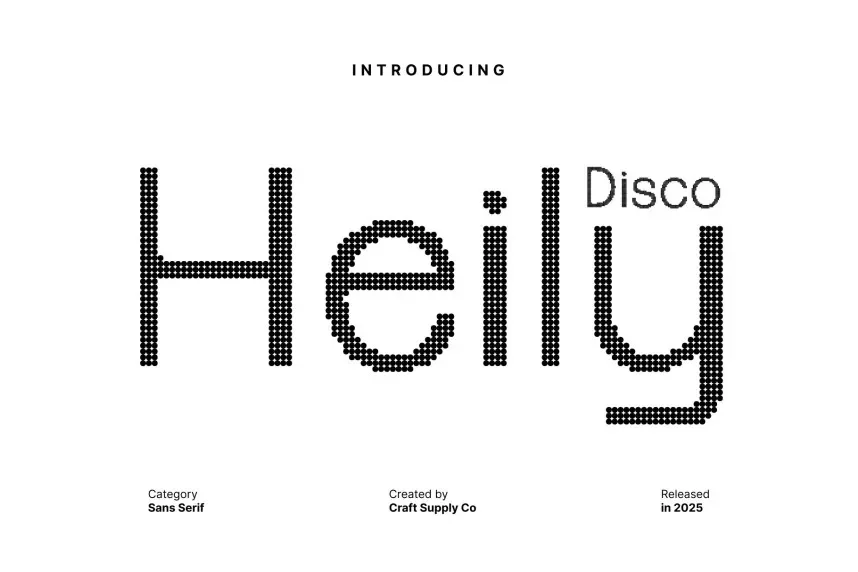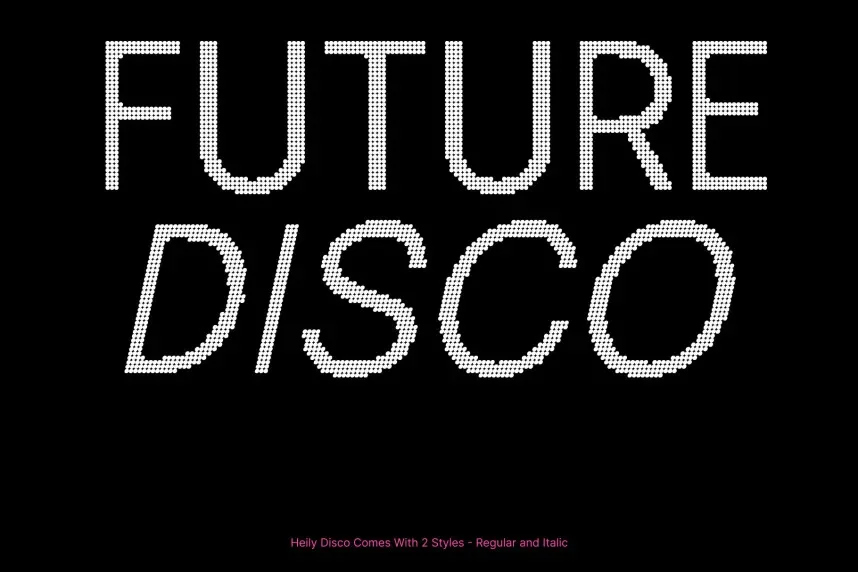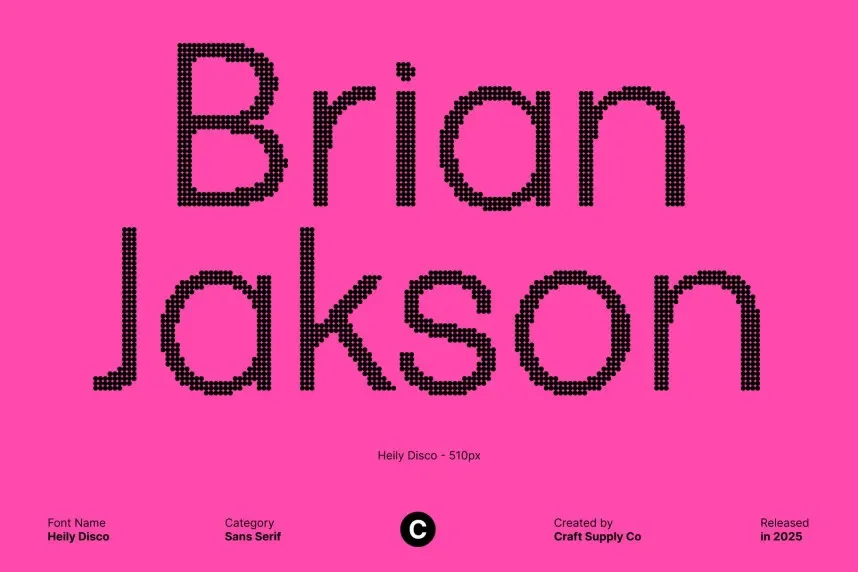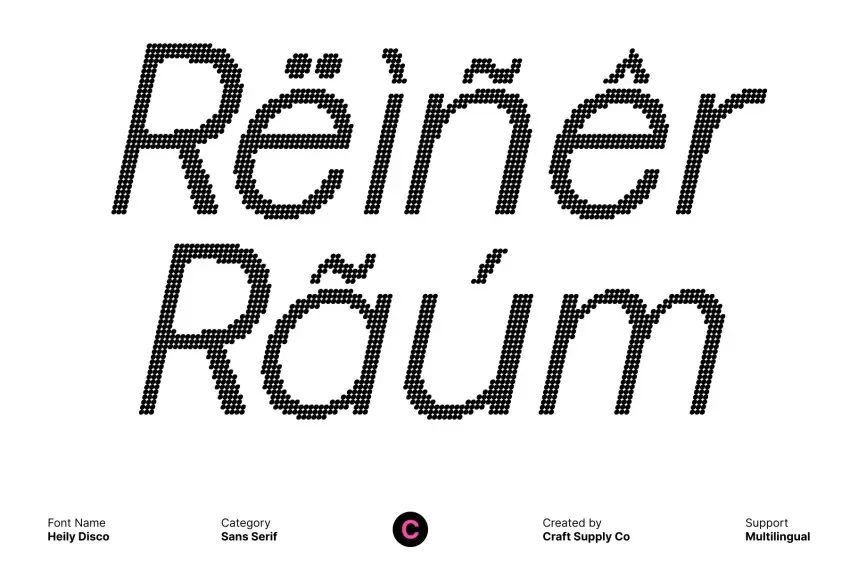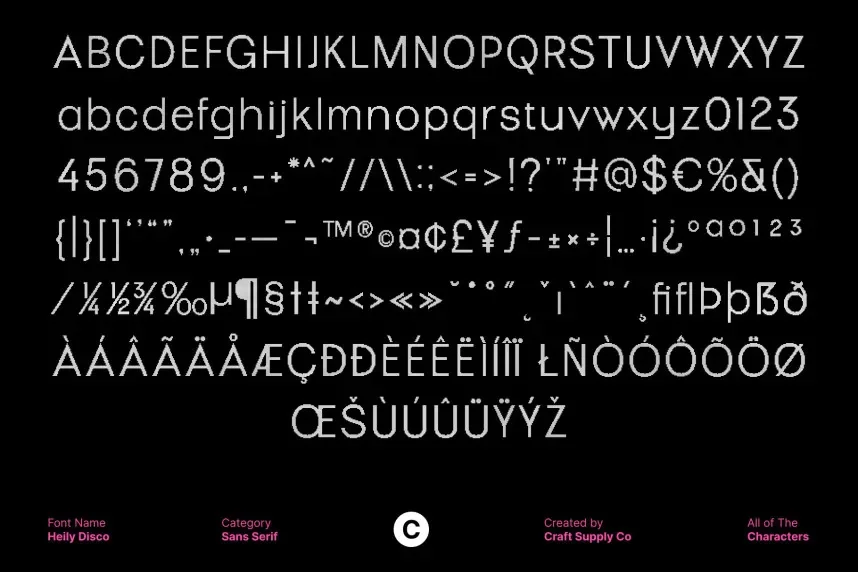
Heily Disco Font is a bold, retro-inspired display typeface with playful, rounded forms and thick strokes. It’s ideal for projects that need a fun, energetic vibe, such as event posters, party flyers, and music branding.